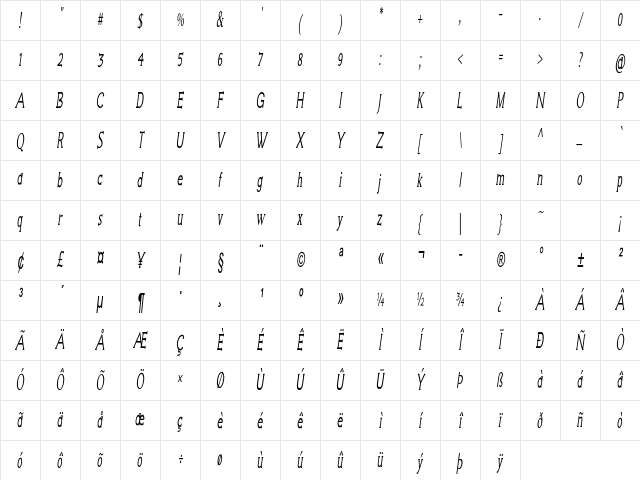
Grackle Extra-condensed Italic
Style: Extra-condensed Italic
Grackle Family
Grackle Extra-condensed Italic
Design Context for Grackle
Grackle is a composed and adaptable typeface that performs quietly and consistently across a wide range of design contexts. The slanted form adds forward momentum and visual energy. Its narrow stance lets it pack a punch even in space-constrained designs.
Pro Tip: Use Grackle for emphasis, pull quotes, and subheadings where its slanted energy can add rhythm to the layout.